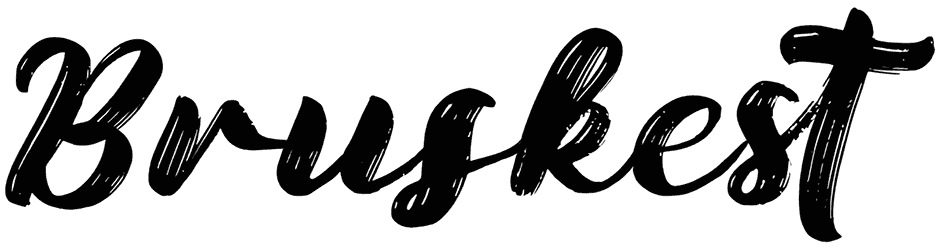
Bruskest Font
Would you love to create a classic but modern face for your upcoming project? Test this brush font with its realistic and ravishing vibe named Bruskest. Even with no offer for numbers, this handwritten font would be a delightful illustration for your novel layouts, such as postcards, banners, logos, magazines, and so on.